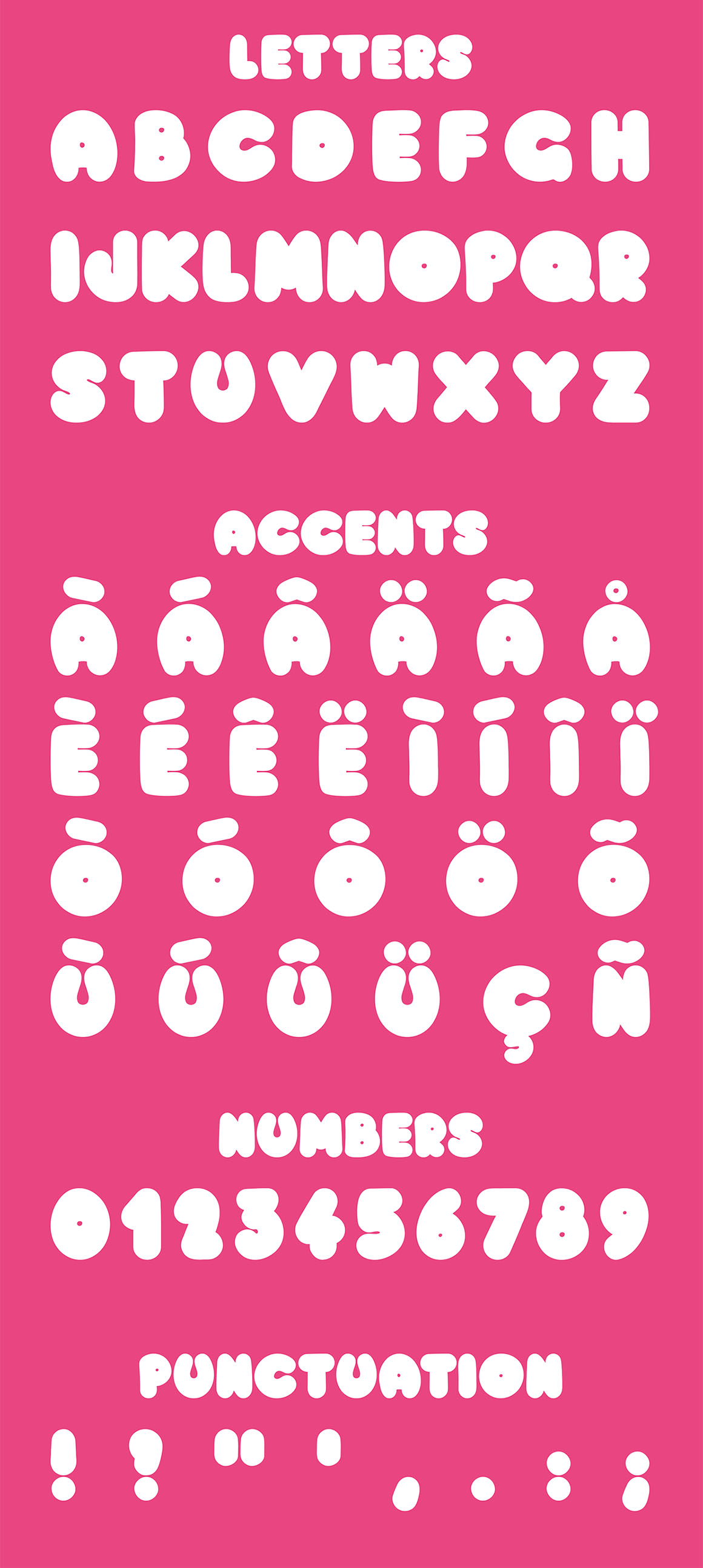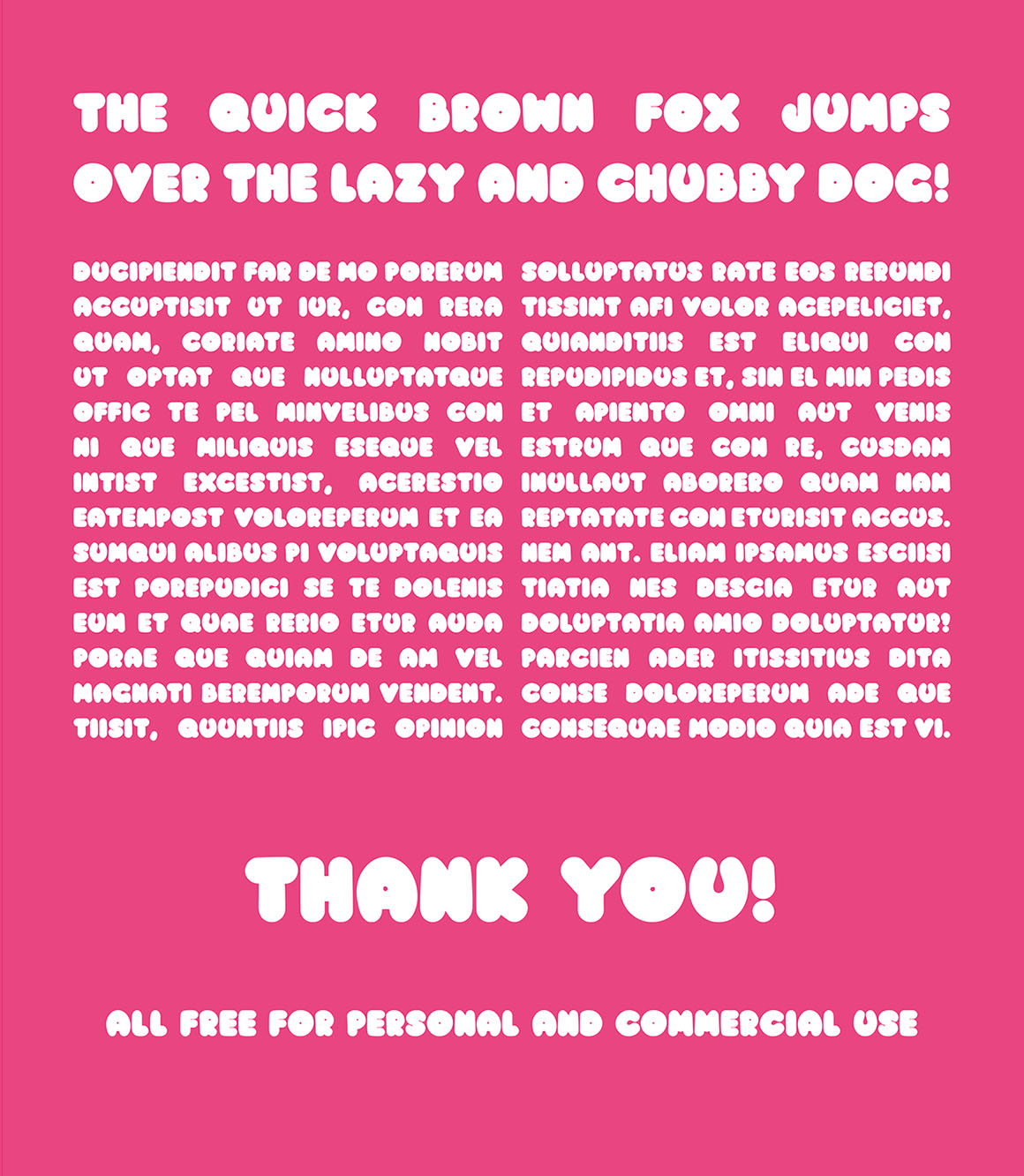
Chubby – Free Funny Font
This cool custom font is from Andrea Prina. With cool & funny style and great for your new creative projects. Download and enjoy 😉